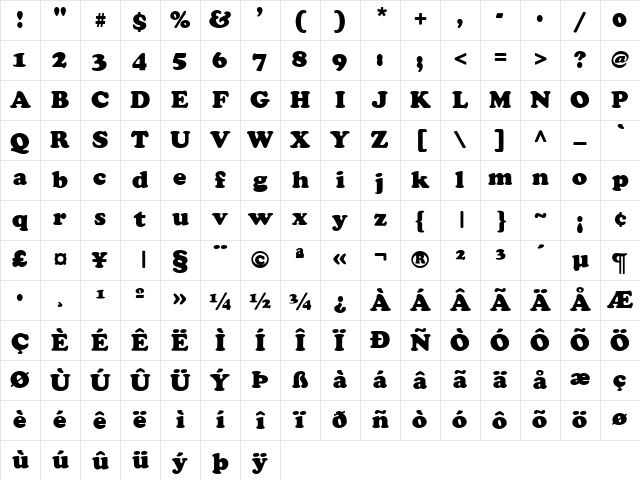
Cupertino Regular
Cupertino Family
Cupertino Regular
Design Context for Cupertino
Cupertino is a composed and adaptable typeface that performs quietly and consistently across a wide range of design contexts.
Pro Tip: Use Cupertino in both headline and body roles to test its range before committing to a single application.